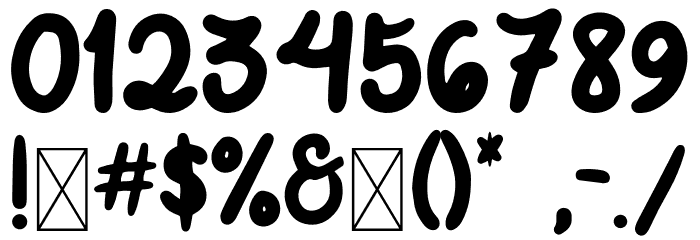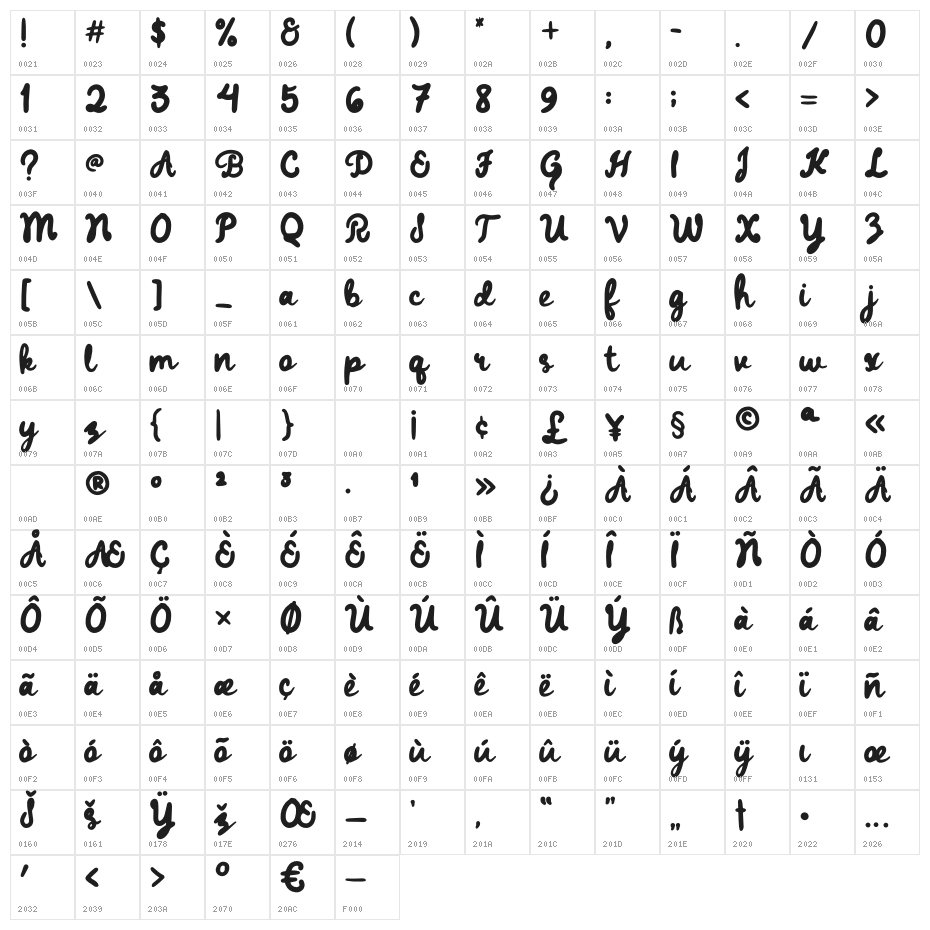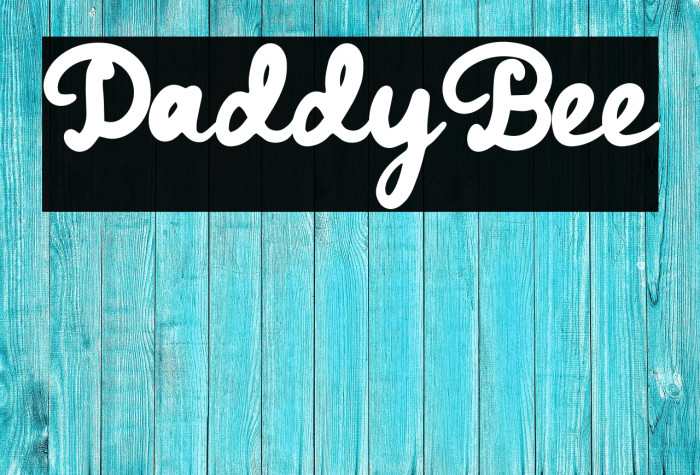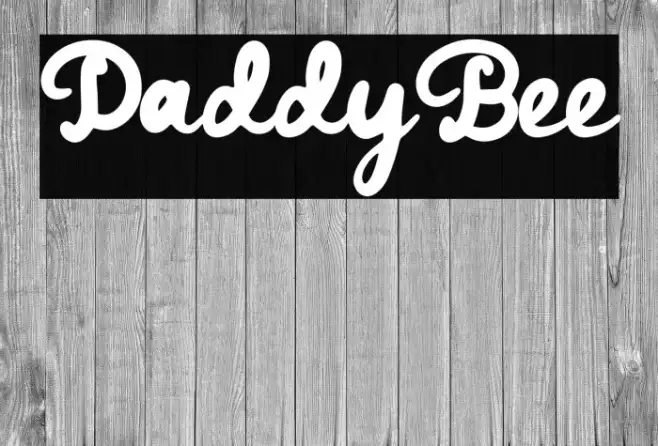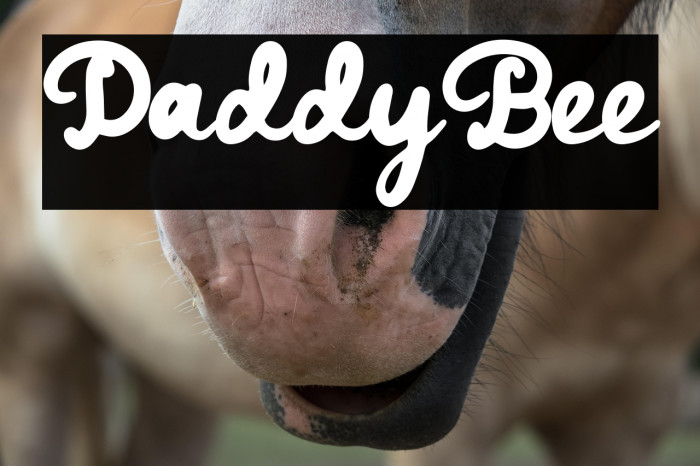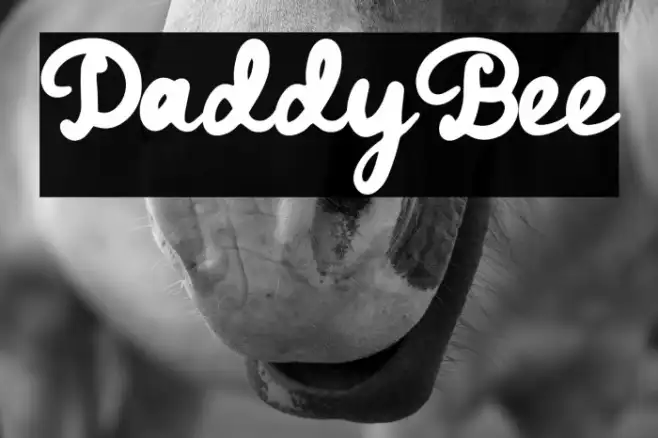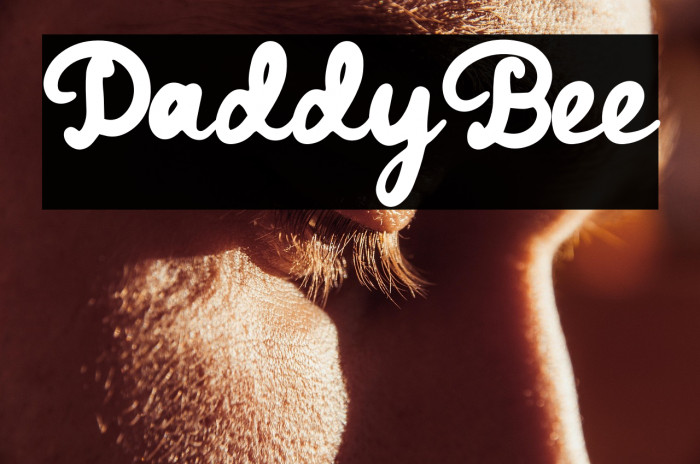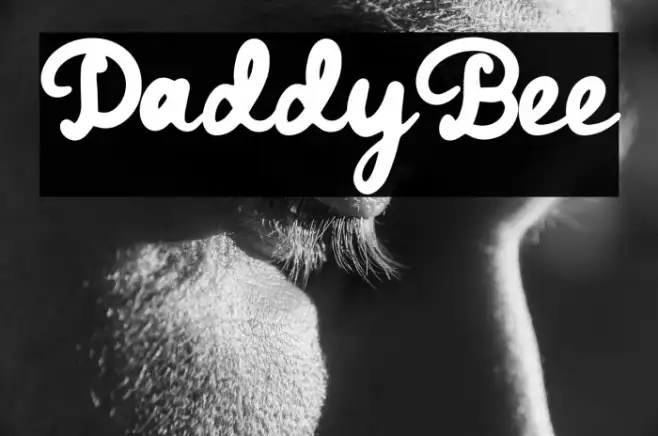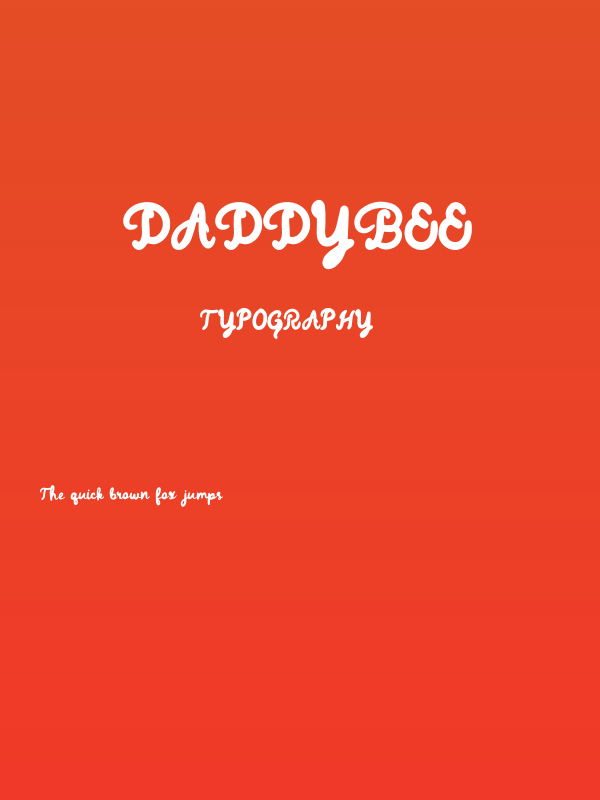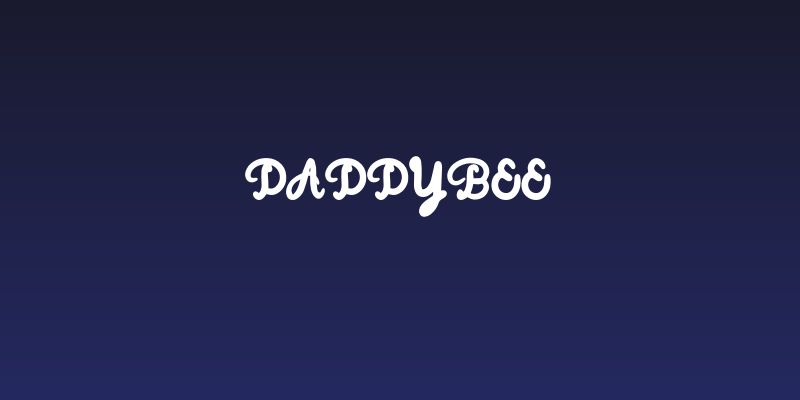
DaddyBee Font
DaddyBee Description
This font features a playful and bold script style, characterized by its thick, rounded strokes and smooth curves. The uppercase letters maintain a consistent height, while the lowercase letters exhibit a slight slant, adding a dynamic flow to the text. The numbers are equally bold and rounded, ensuring readability and a cohesive look. Special characters are designed with the same playful aesthetic, making them stand out while remaining harmonious with the rest of the font. This font's overall appearance is both friendly and energetic, making it suitable for various creative applications.